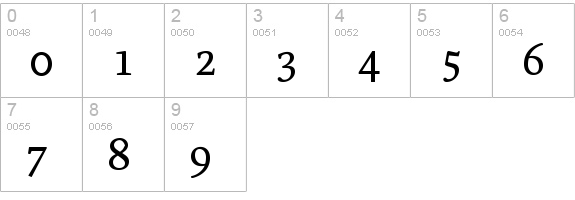
Parable-Regular is the standard, neutral variant in the Parable typeface family \xE2\x80\x94 well suited to general body text, paragraphs, and standard typographic work.
Parable-Regular, a stunning font that effortlessly combines elegance and modernity, is the perfect choice for any design project. Its sleek and sophisticated lines will captivate your audience and elevate your work to new heights. With its versatile nature, Parable-Regular can be used for a wide range of applications, from branding and logo design to editorial layouts and website headers. Its clean and legible letterforms ensure maximum readability, making it a reliable choice for both print and digital media. What sets Parable-Regular apart is not only its impeccable design, but also its accessibility. This font is freely available to download at FontsMarket.com, allowing designers and creatives to unleash their creativity without any limitations. Whether you're a professional designer or a hobbyist, Parable-Regular invites you to explore the possibilities and create stunning visuals that leave a lasting impression. Featuring a comprehensive set of characters, including uppercase and lowercase letters, numbers, punctuation, and special symbols, Parable-Regular provides all the tools you need to bring your visions to life. Its seamless compatibility with various design software and operating systems ensures a smooth and hassle-free experience, enabling you to focus on what truly matters – your creativity. Embrace the power and beauty of Parable-Regular, and watch as your designs come to life with a touch of elegance and sophistication. Download this remarkable font for free at FontsMarket.com and unlock a world of possibilities for your next project. Let Parable-Regular be your trusted companion as you embark on a creative journey like no other.